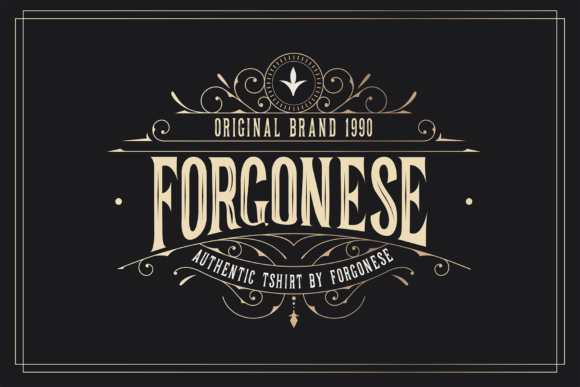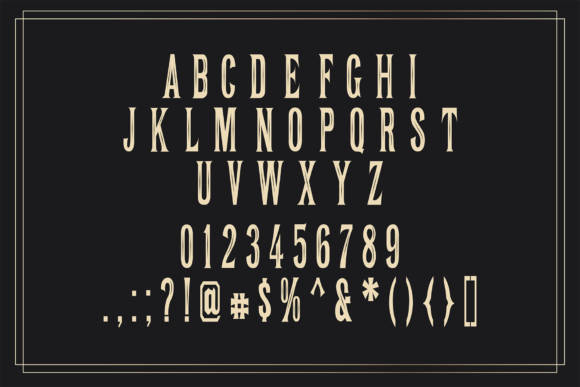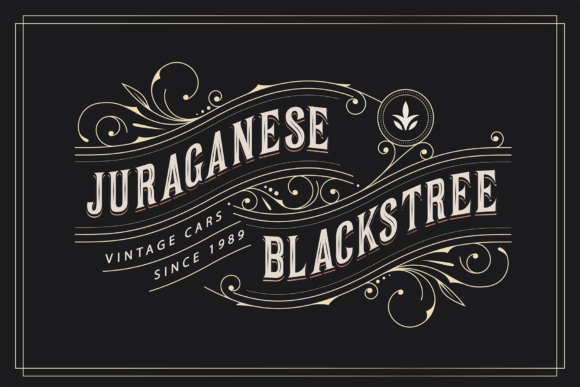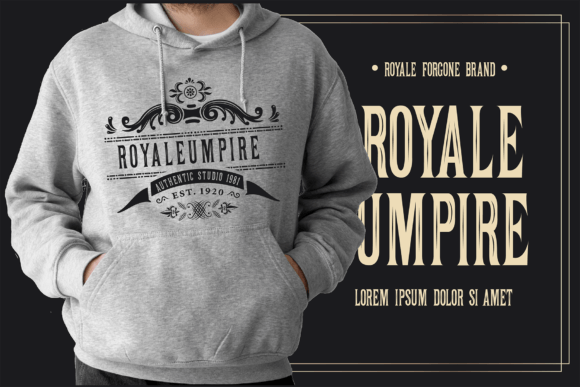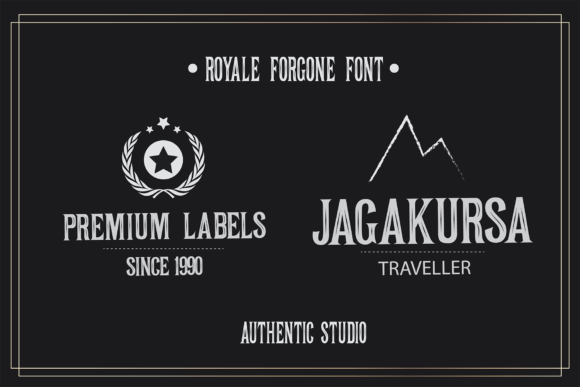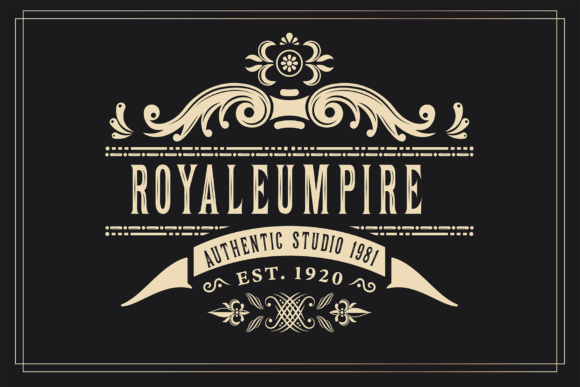
Introduction to Royale Forgone Font
Have you ever stared at a blank canvas, desperate for the perfect font to bring your creative project to life? I know I have. And then, like a ray of sunshine on a cloudy day, you stumble upon the Royale Forgone Font. This bold, vintage-styled serif font is an absolute game-changer for designers like us.
With its unique blend of elegance and playfulness, the Royale Forgone Font is the perfect addition to any branding project, product packaging, invitation, or logo. And the best part? It’s a high-quality design resource that’s available for free download, complete with a transparent background to make your design process a breeze.
As designers, we’re always on the lookout for the perfect font to elevate our work. And with the Royale Forgone Font, you’ll find yourself returning to it again and again for its versatility and charm. Whether you’re working on a creative project or simply looking for a new design resource, this font is sure to impress.
Key Features of Royale Forgone Font
- High-quality design resource with a unique, elegant aesthetic suitable for creative projects
- Includes a comprehensive character set, including uppercase and lowercase letters, numbers, and punctuation marks
- Unique characteristics include a distinctive flair and subtle flair, adding a touch of sophistication to any design project
Honest Review: Royale Forgone Font
I recently stumbled upon the Royale Forgone Font while searching for a unique design resource for a creative project. The font is a free download, which immediately caught my attention, and I was pleasantly surprised by its high quality.
- ✨ Unique and elegant design style that adds a touch of sophistication to any project.
- ✨ High quality, crisp, and clear font that’s perfect for both digital and print projects.
- ⚠️ Limited character set, which may not be suitable for extensive text-based projects.
- ⚠️ Not ideal for projects that require bold, heavy font usage.
Overall, I’m impressed with the Royale Forgone Font. It’s a great addition to any designer’s toolkit, and I appreciate that it’s available for free download. If you’re looking for a unique and elegant font for your creative project, I’d definitely recommend giving it a try.
The Royale Forgone Font is ideal for various creative projects, including logos, social media graphics, and presentations. Its high-quality design and transparent background make it a versatile design resource for both personal and professional use.